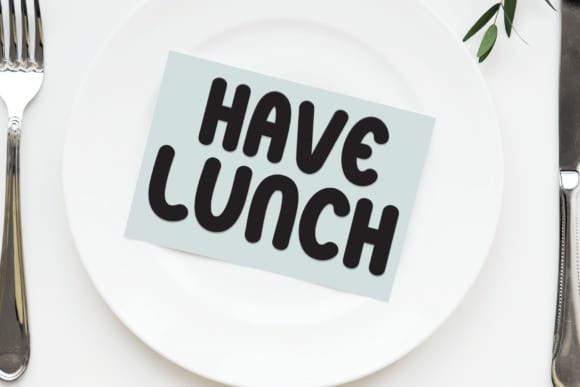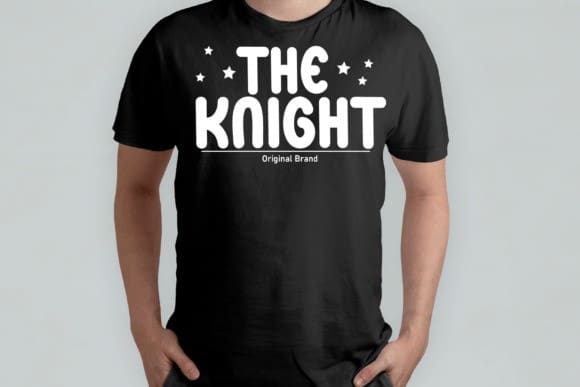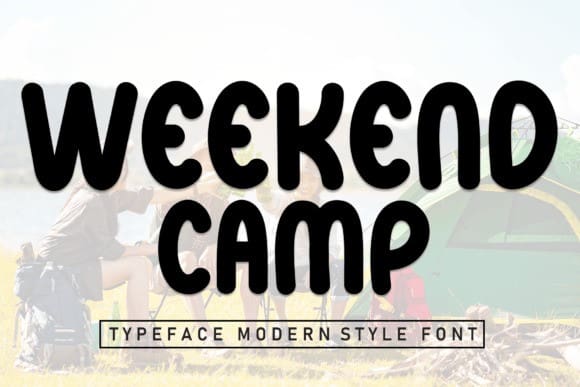
Weekend Camp Font
Weekend Camp Font is a sweet and friendly handwritten font. Fresh and casual, this font is ideal for writing wedding invitations, cards, or any other design that might need a lovely touch.